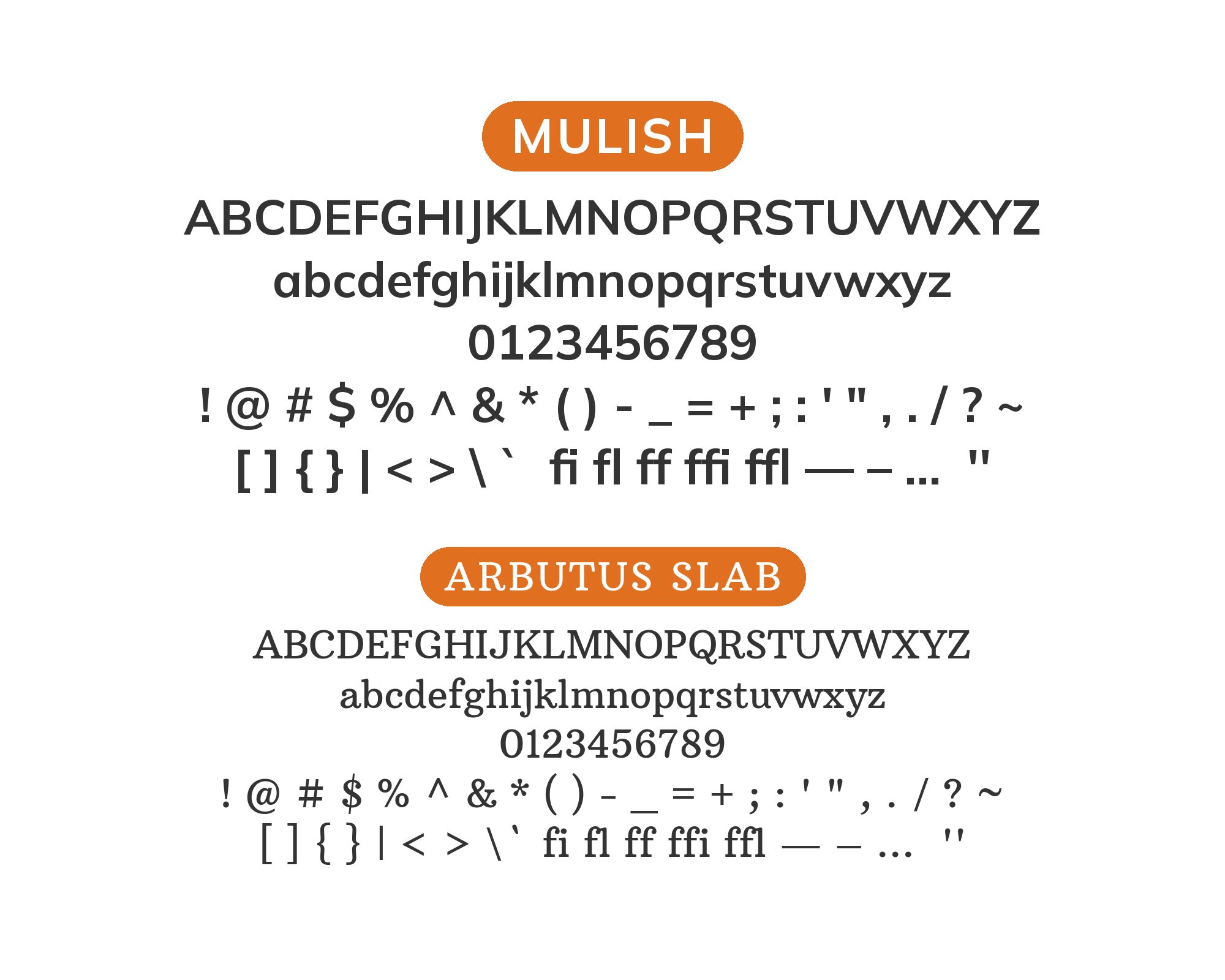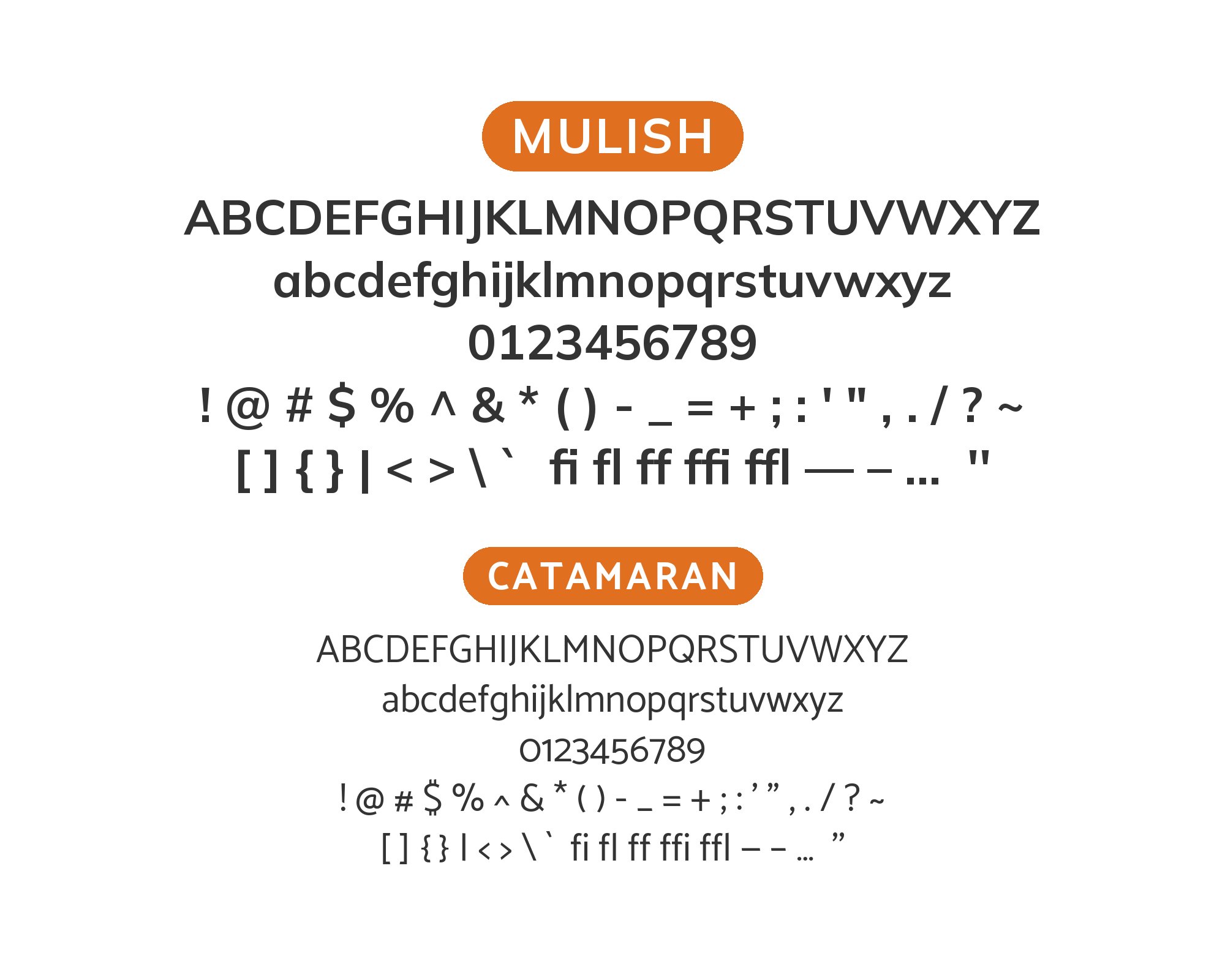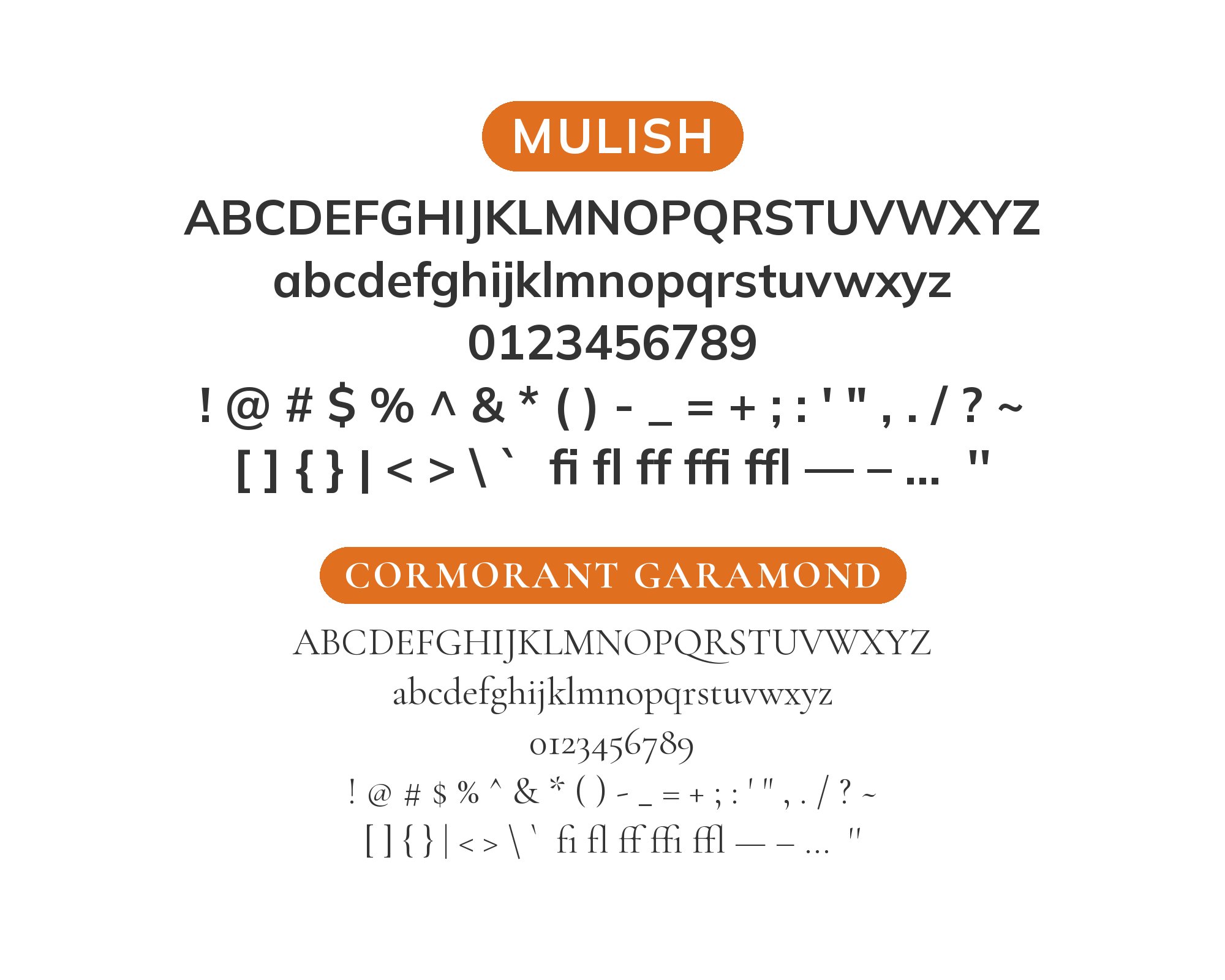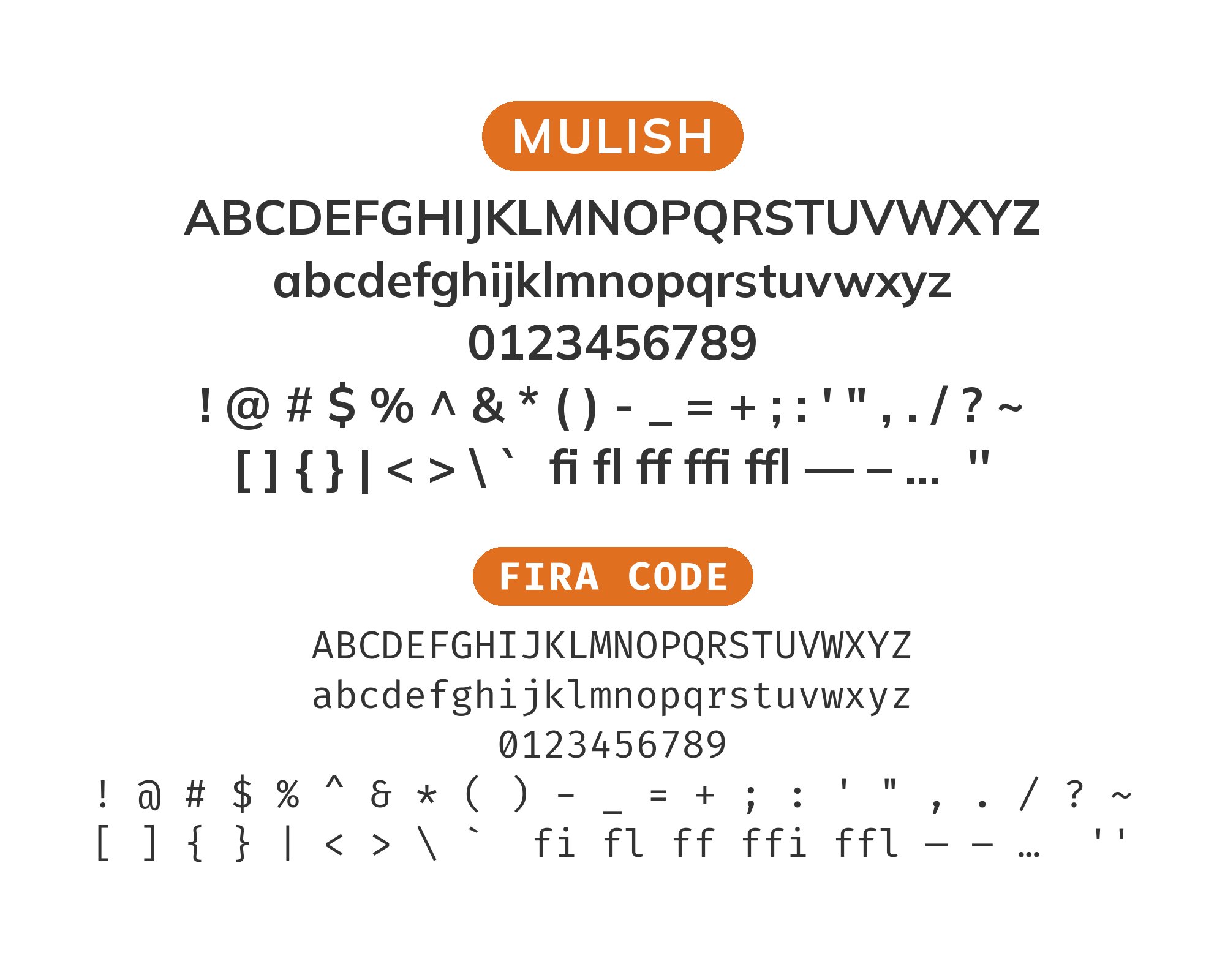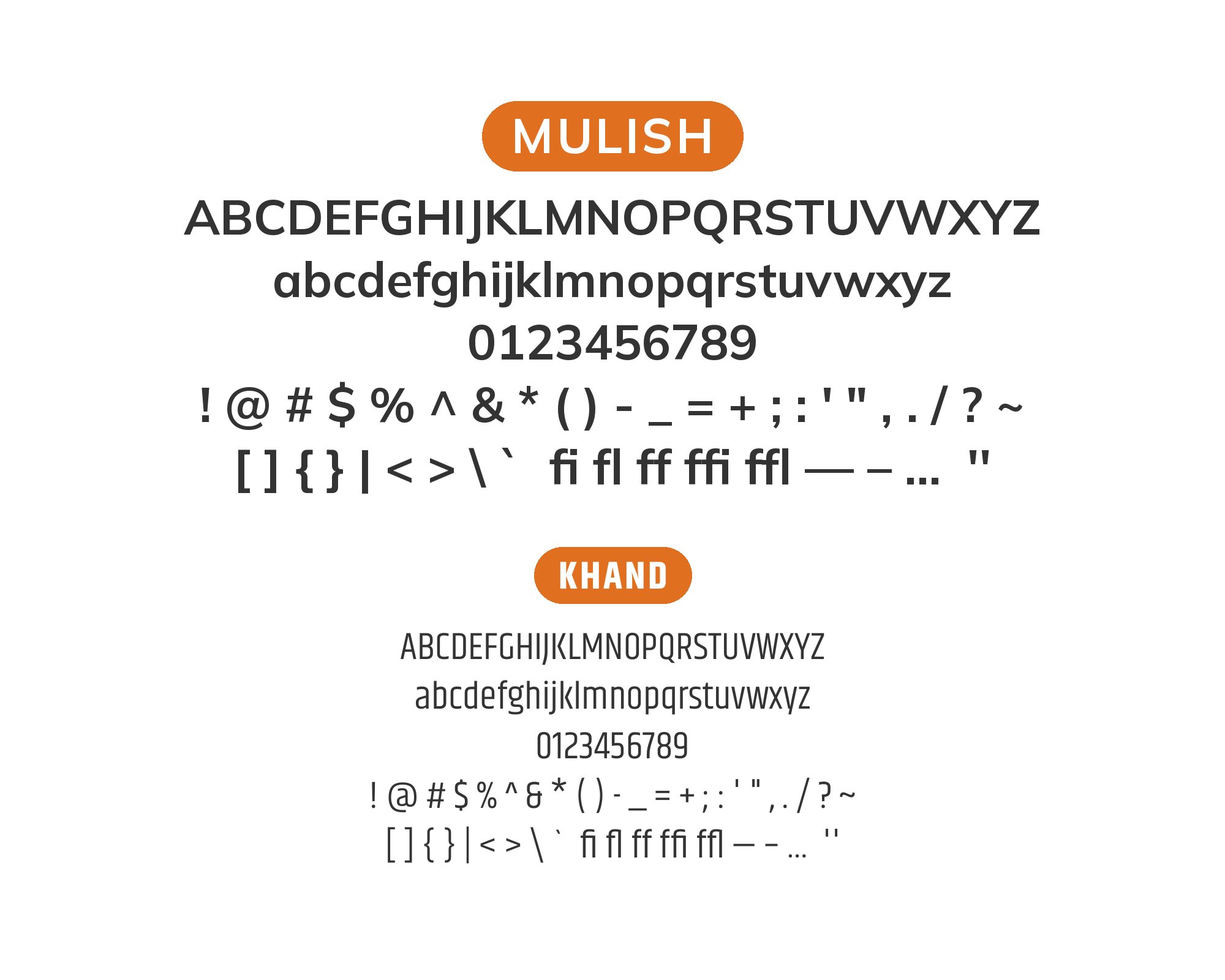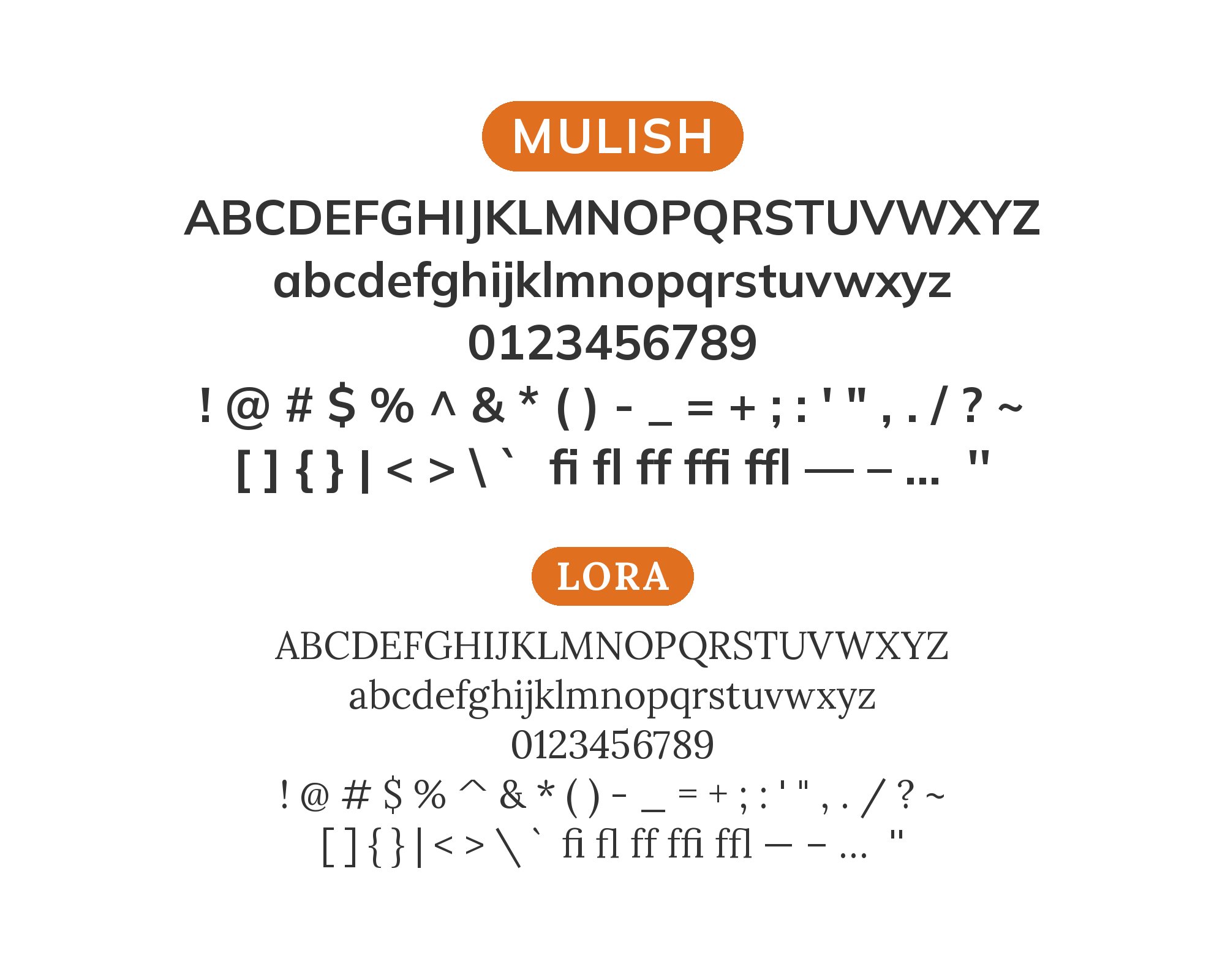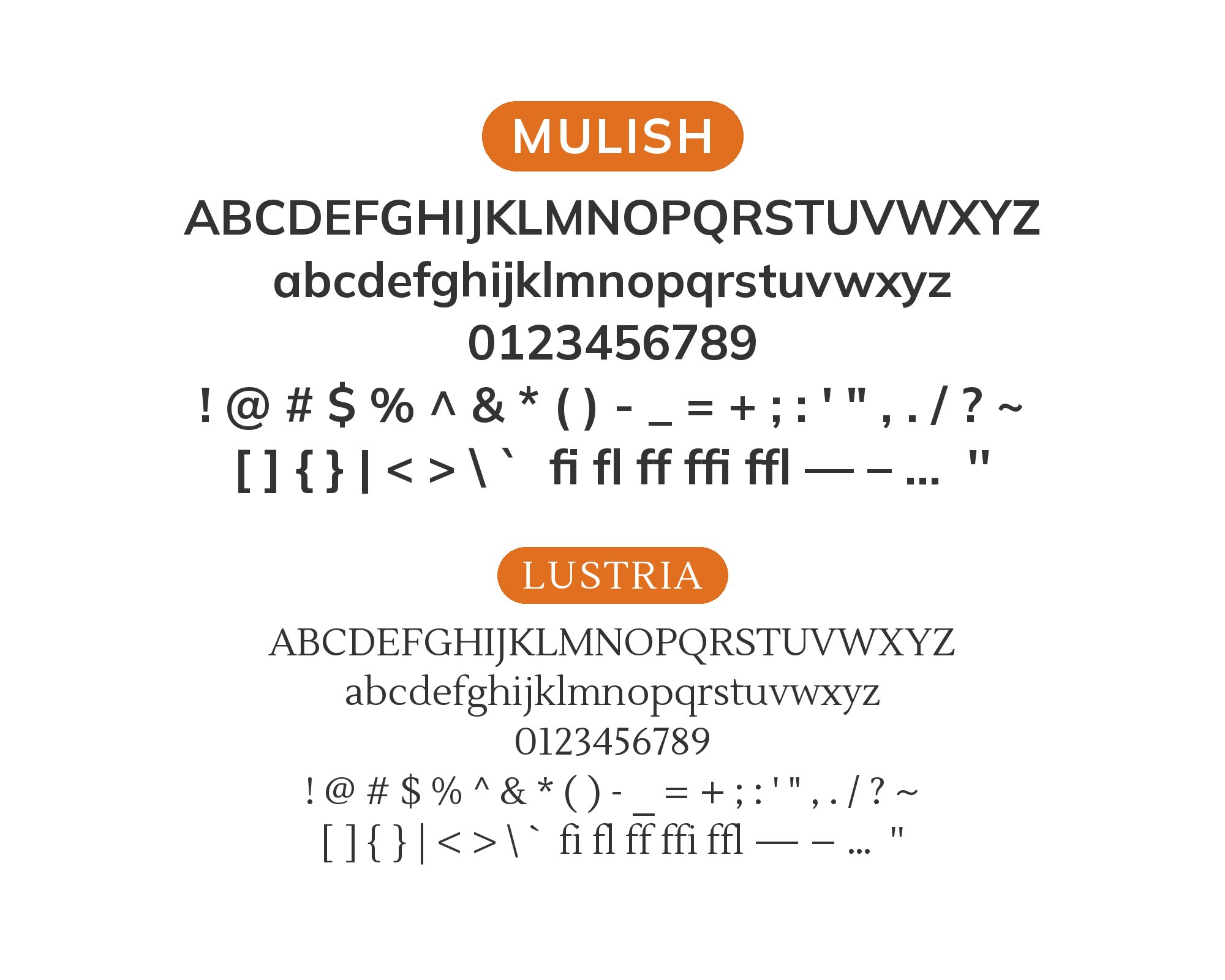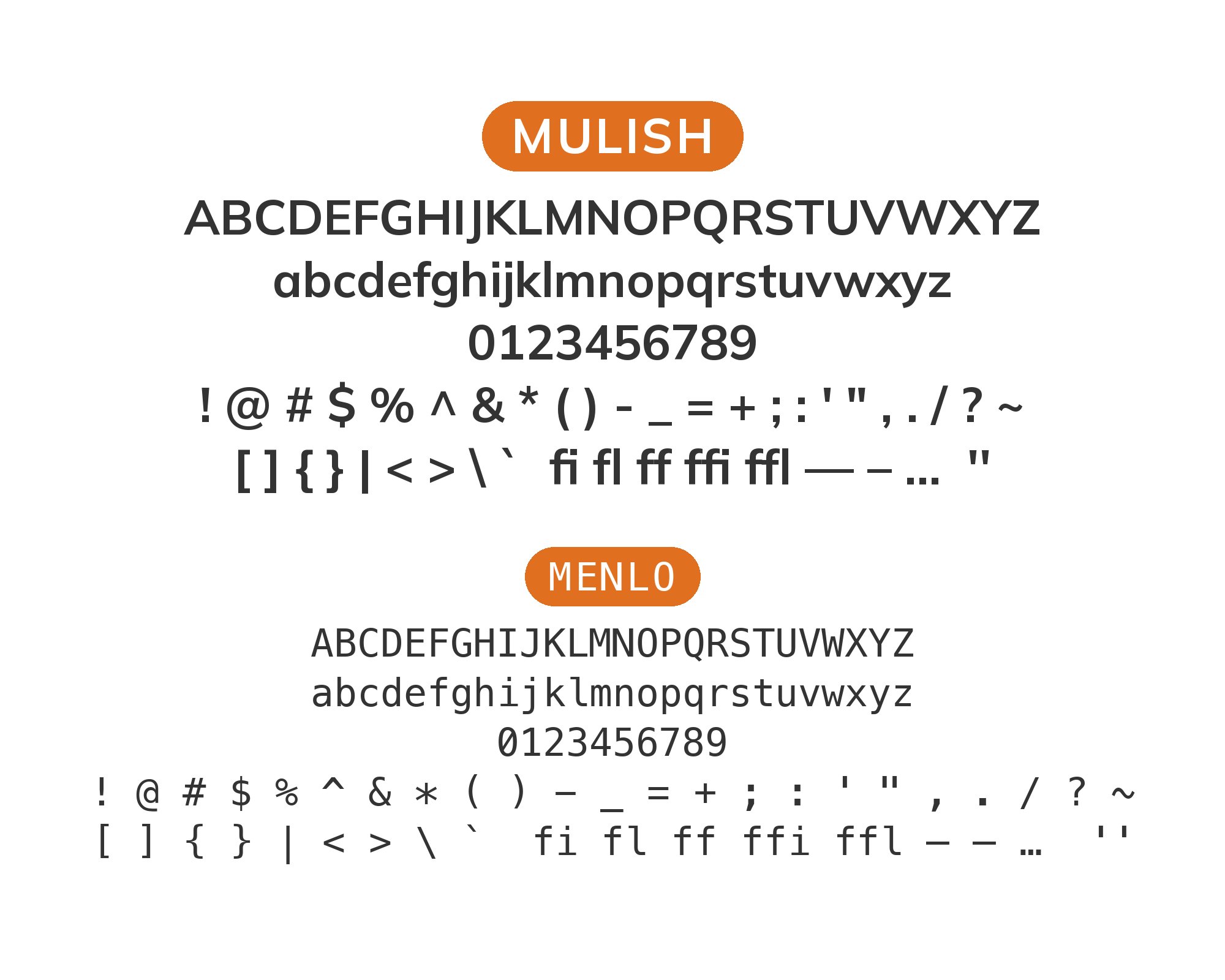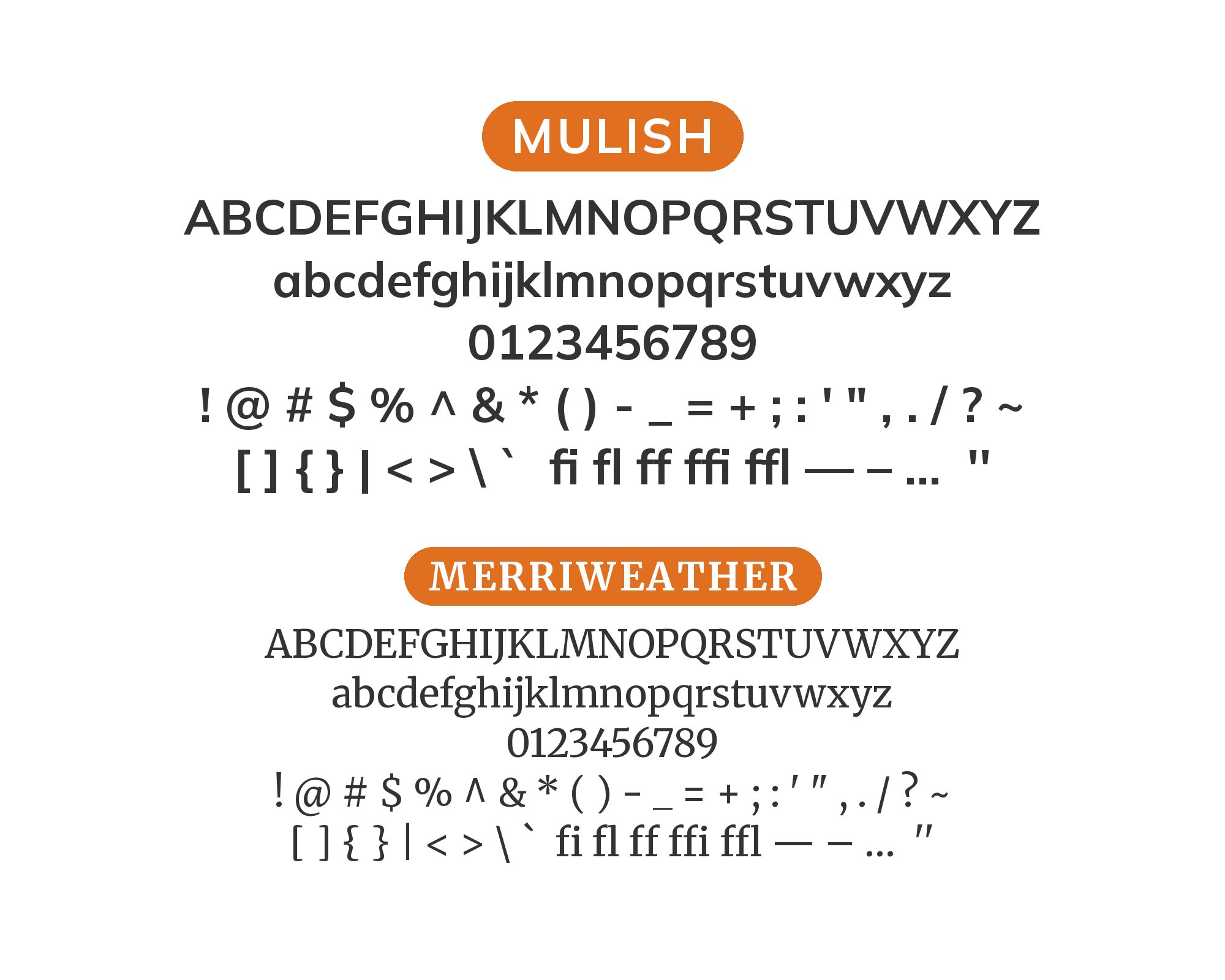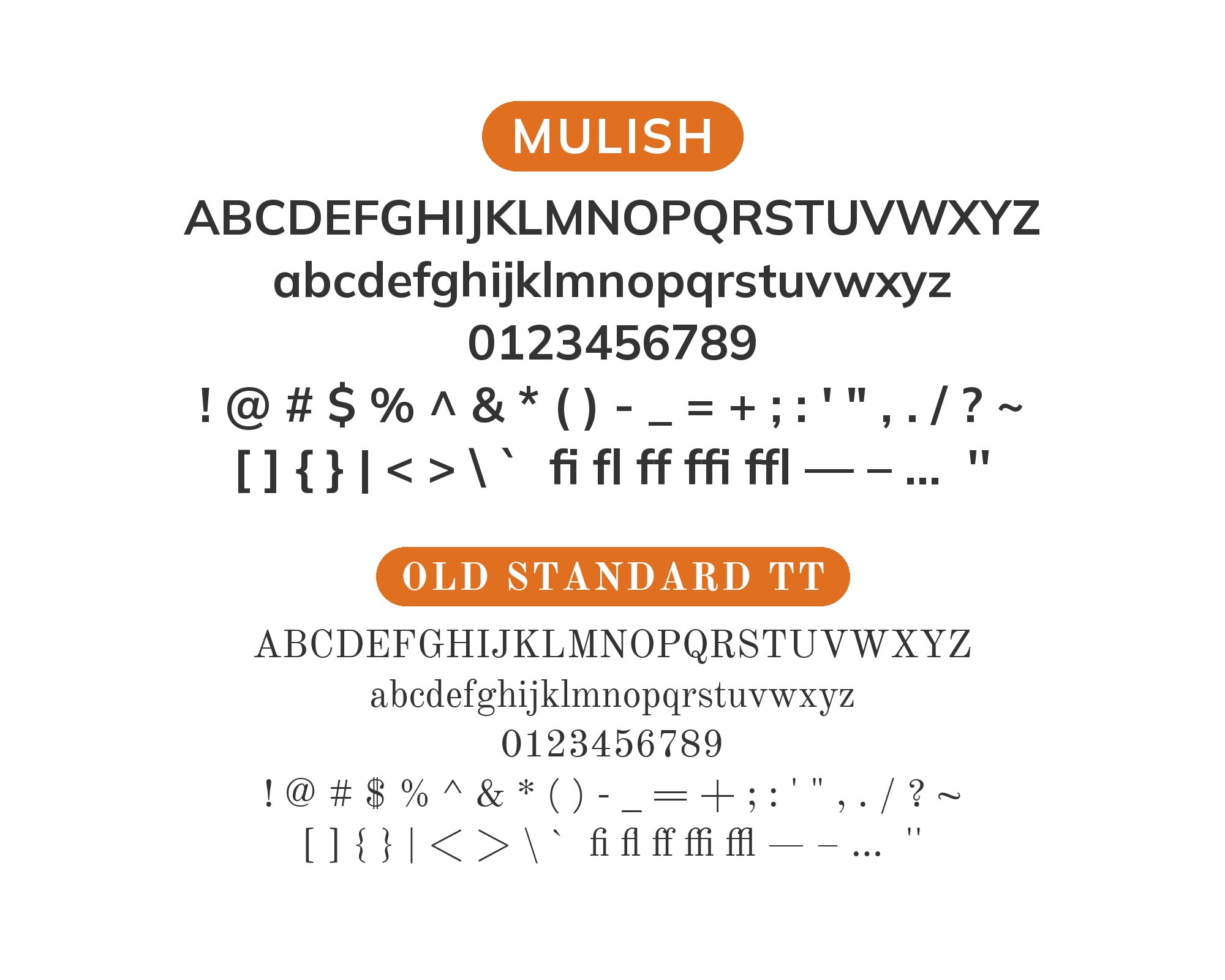
Mulish pairs great with Playfair Display, Merriweather and Lora. All 15 pairings are shown below in real rendered specimens, with the reason each one works.
What fonts go with Mulish? The answer depends on a fact most pairing guides skip: Mulish is not the expressive half of any combination it appears in. It is the neutral layer, the face that holds the paragraph and the button label while something else carries the voice, and that reverses the usual question from “what supports this font” to “what does this font support.”
Vernon Adams began the family in 2011 and refined it through 2014. After his death, Jacques Le Bailly updated it in 2017 in collaboration with Adams’s widow, Allison Adams, and the Cyreal studio supplied the Cyrillic. A variable version with a continuous Weight axis arrived in August 2019, and around 2020 the family was renamed from Muli to Mulish because the original name is a slur in some communities. Adobe Fonts lists styles from ExtraLight to Black, each with a matching italic. Throughout that range the stroke stays near-monoline: Mulish gets heavier without ever developing thick-thin modulation, which is precisely why it cannot supply its own contrast.
That single structural fact governs every pairing below. Because Mulish holds a tall x-height and open apertures at small sizes, it earns the body-and-interface role on merit — and because it stays monoline even at Black, a headline set in Mulish Black looks like loud Mulish rather than a different voice. The partner therefore has to provide the stroke contrast, the period flavor, or the width that Mulish structurally withholds. The documented evidence leans this way: most recorded partners are serifs, monospaces, display faces or scripts, and the few sans partners differ from Mulish in width or script. Here are 15 fonts that pair with Mulish.
1. Playfair Display
Claus Eggers Sørensen designed Playfair Display and released it on Google Fonts in 2011, drawing on the high-contrast transitional types of the late-18th-century European Enlightenment, where thin strokes shrink almost to hairlines against heavy stems and it takes influence from the designs of John Baskerville and from Scotch Roman designs. That extreme modulation is the exact property Mulish lacks, which is why this is the most-documented Mulish partner of all — independent site analysis records the two together on three separate production sites, and a compatibility index scores the combination in its top serif tier. The two faces can never be confused at any size or weight, so the display and text roles stay cleanly divided without a designer having to enforce the split. Set Playfair Display large, where its hairlines survive rendering, and let Mulish handle everything from subheads down.
2. Merriweather
Eben Sorkin designed Merriweather, which reached Google Fonts in 2011, as a serif built specifically for screen reading, with a large x-height, sturdy slab-influenced serifs and deliberately restrained contrast. The pairing has the best provenance on this list: the Fonts In Use archive records Mulish and Merriweather working together across the Together For Yes 2018 referendum campaign, in an entry contributed by Sorkin himself. Structurally they match where it counts — both were drawn for pixels, and their large x-heights mean they occupy the same apparent size at the same point size, so a designer can mix them in running text without optical correction. Use Merriweather for long-form articles and Mulish for navigation, captions and interface chrome.
3. Lora
The Cyreal studio designed Lora and released it in 2011 as a calligraphic serif rooted in brush lettering, with moderate contrast and a visible writing gesture in its terminals. Typewolf, which publishes one curated recommendation per typeface rather than a scraped list, names this as the pairing for the face. There is a genuine family connection behind that pick: Cyreal is also credited with Mulish’s Cyrillic, so the two designs come out of overlapping workshops. What Lora contributes is calligraphic warmth — the handwritten residue Mulish removes on purpose — without the formality of a book serif. The combination suits editorial sites, blogs and lifestyle brands that need a human voice in the body copy and a clean, unfussy interface around it.
4. Cormorant Garamond
Christian Thalmann released Cormorant Garamond in 2015 as part of the larger Cormorant project, a display-oriented interpretation of Claude Garamond’s 16th-century romans with finer hairlines and a smaller x-height than any working text Garamond. That small x-height is the structural argument: Mulish runs tall and wide-bowled, Cormorant Garamond runs short and delicate, so the two separate by proportion as well as by category. Live-site analysis records them together on a fashion brand’s site, which is the right register for the combination — the delicacy reads as refinement rather than weakness when the page has room. Set Cormorant Garamond at display sizes only; below roughly 20 pixels its hairlines break down, and Mulish should take over well before that point.
5. Prata
Cyreal drew Prata as a single-weight display serif in the Didone tradition, with strong vertical stress, abrupt thick-to-thin transitions and sharp triangular serifs with organic teardrop terminals. The constraint is the feature: Prata ships in one weight and has no text-size range at all, so it cannot creep beyond the headline even if a designer wants it to. That forces the clean role division Mulish pairings depend on — Prata sets the one line that has to be beautiful, and Mulish’s many styles cover subheads, body copy, captions, labels and buttons underneath. Independent site data documents the two on a luxury e-commerce site, where the contrast between a single ornate headline and a full functional sans system is the entire visual strategy.
6. Catamaran
Pria Ravichandran designed Catamaran as a humanist sans covering both Latin and Tamil. Pairing a sans with a sans is usually a mistake, and this one survives for two specific reasons. First, width: Catamaran is measurably narrower than Mulish, with more calligraphic residue left in its terminals, so the two read as distinct textures rather than as one font with inconsistent rendering. Second, script coverage — Mulish carries Cyrillic and Catamaran carries Tamil, so a multilingual product can span three writing systems on a coherent humanist skeleton. Live-site analysis documents the combination on a finance app’s site. Use Catamaran for display and Mulish for text, and keep at least two weight steps between them so the width difference has room to register.
7. Roboto Slab
Christian Robertson designed Roboto Slab as the slab-serif branch of the Roboto family, adding rectangular unbracketed serifs to a low-contrast grotesque skeleton. In an independent compatibility index it scores as the strongest serif partner for Mulish — ahead of both Playfair Display and Merriweather — and the reason is structural rather than stylistic. Roboto Slab is near-monoline in exactly the way Mulish is, so instead of contrasting stroke weight, the two contrast only in the presence or absence of serifs. That makes it the quietest serif option here and the right pick for dashboards, documentation and data-heavy products, where a high-contrast Didone headline would read as decorative. Set Roboto Slab for headings and Mulish for everything else; the systems stay visually continuous.